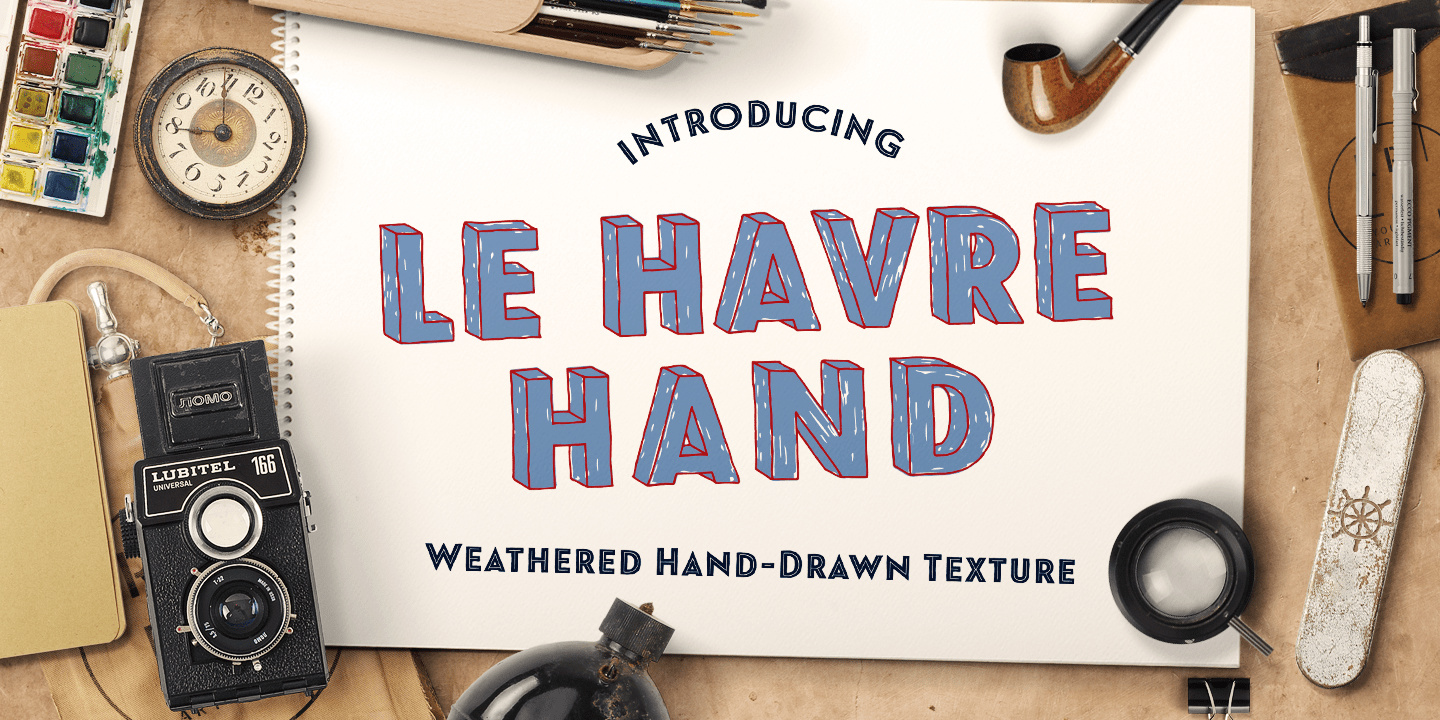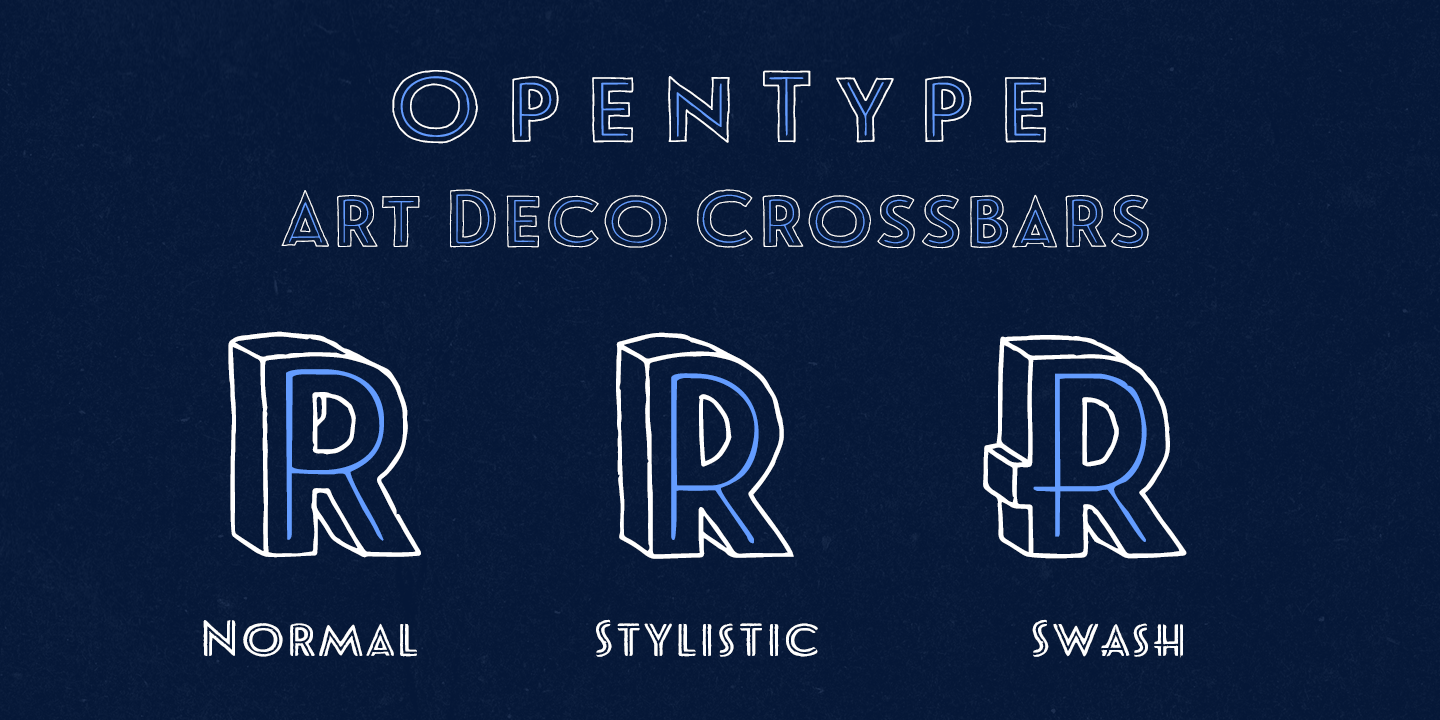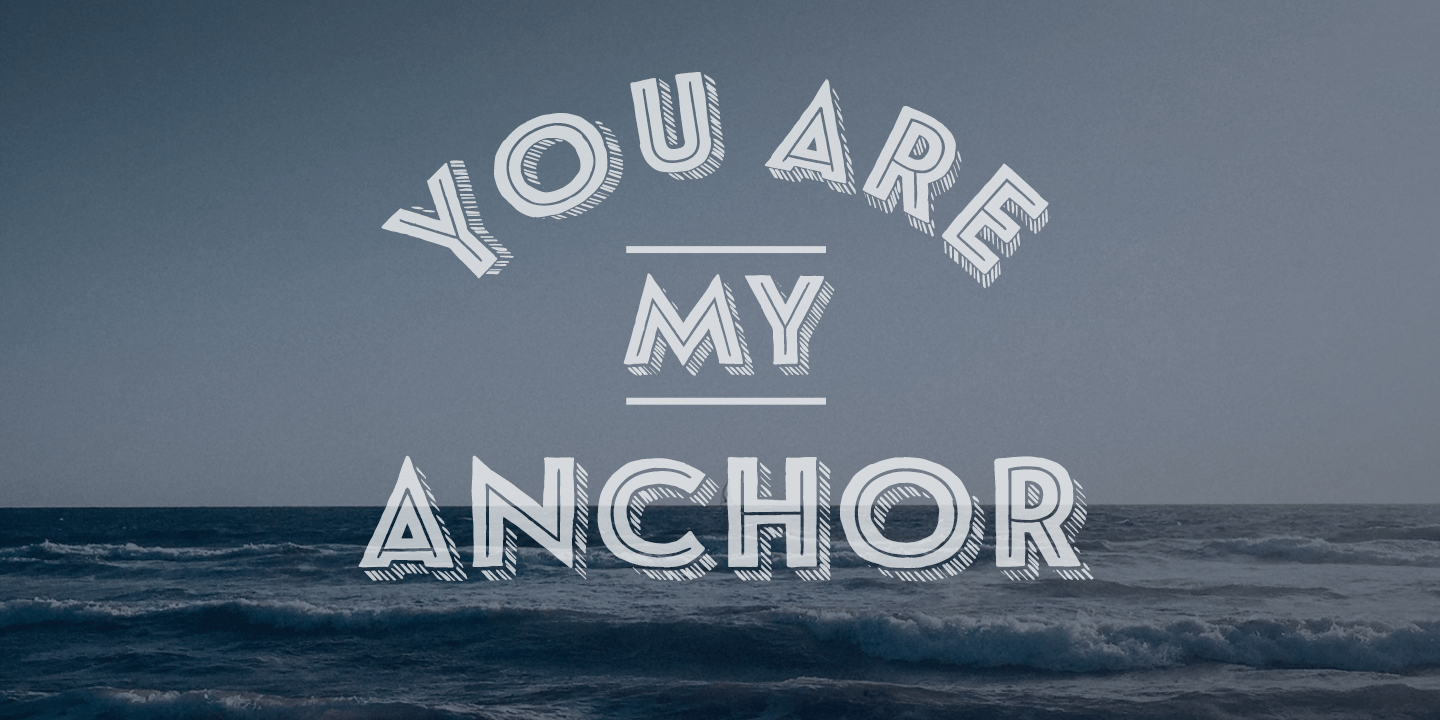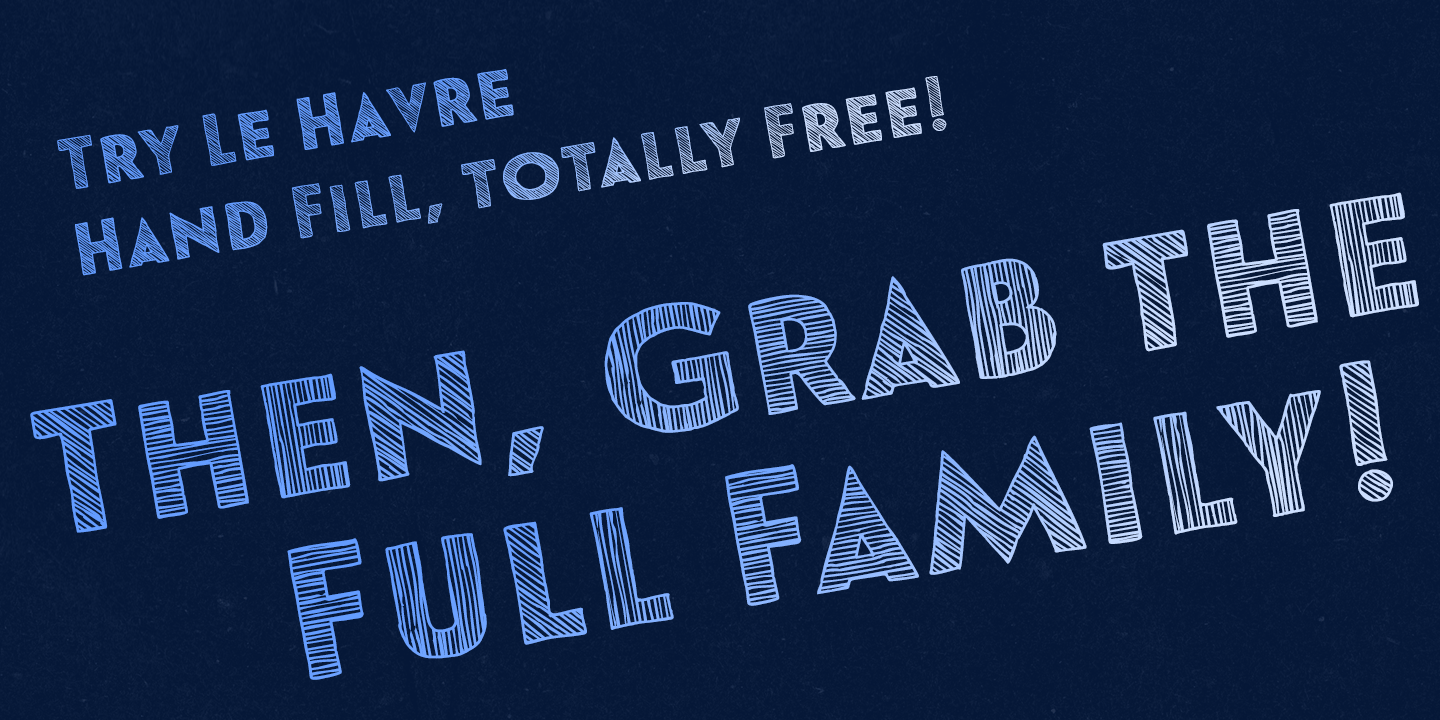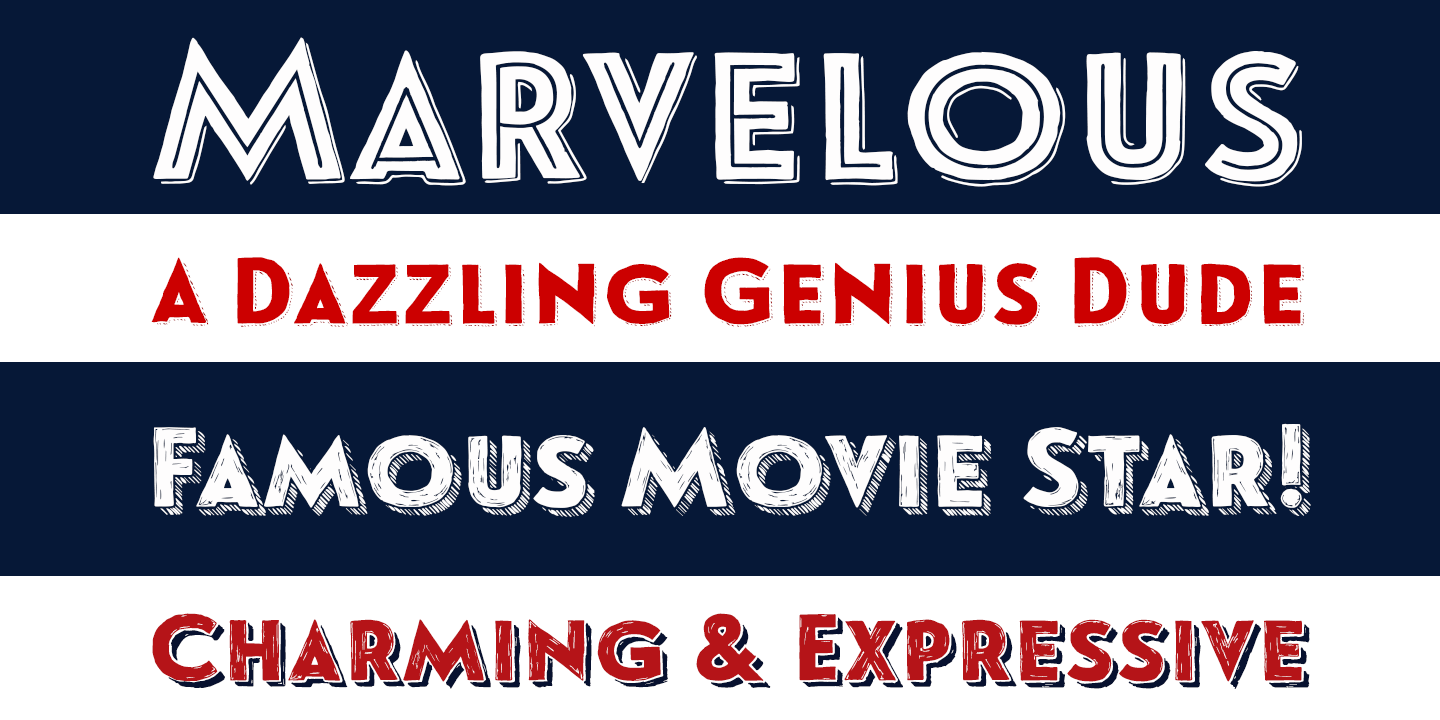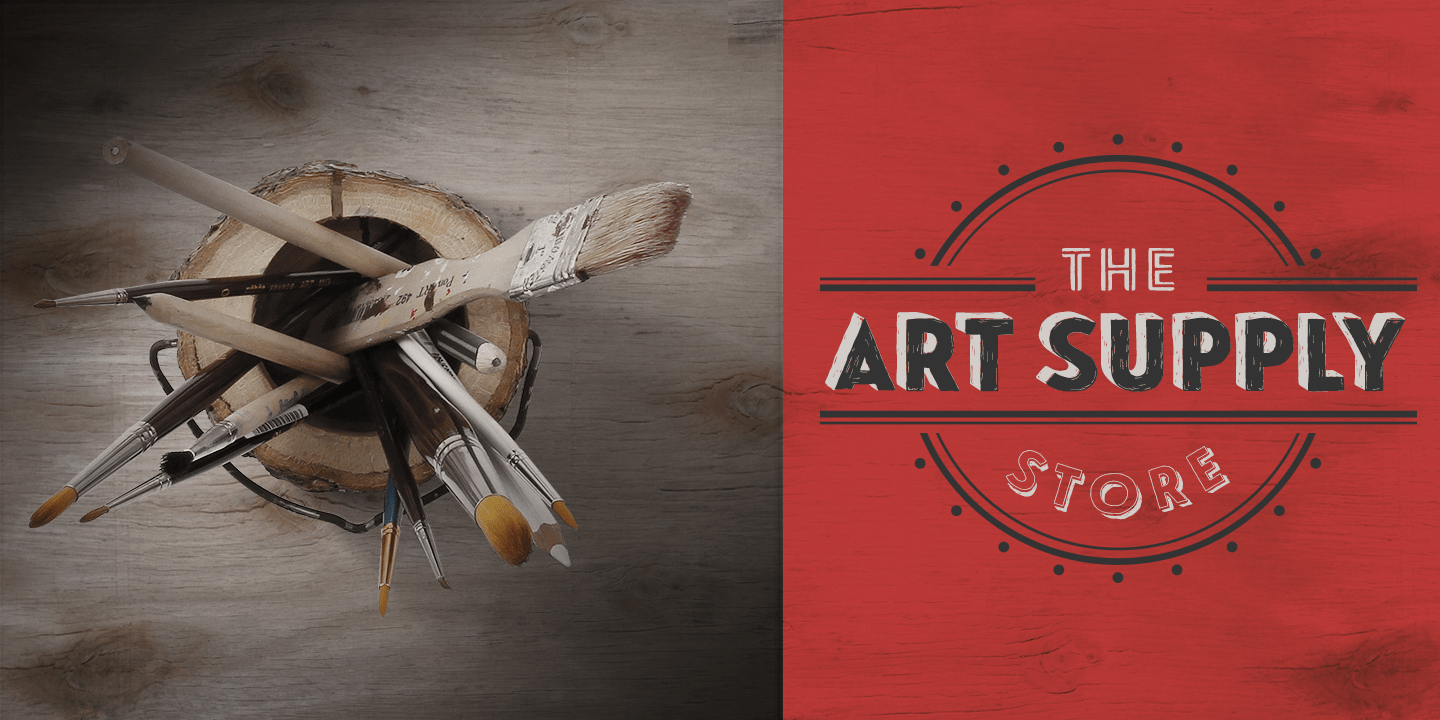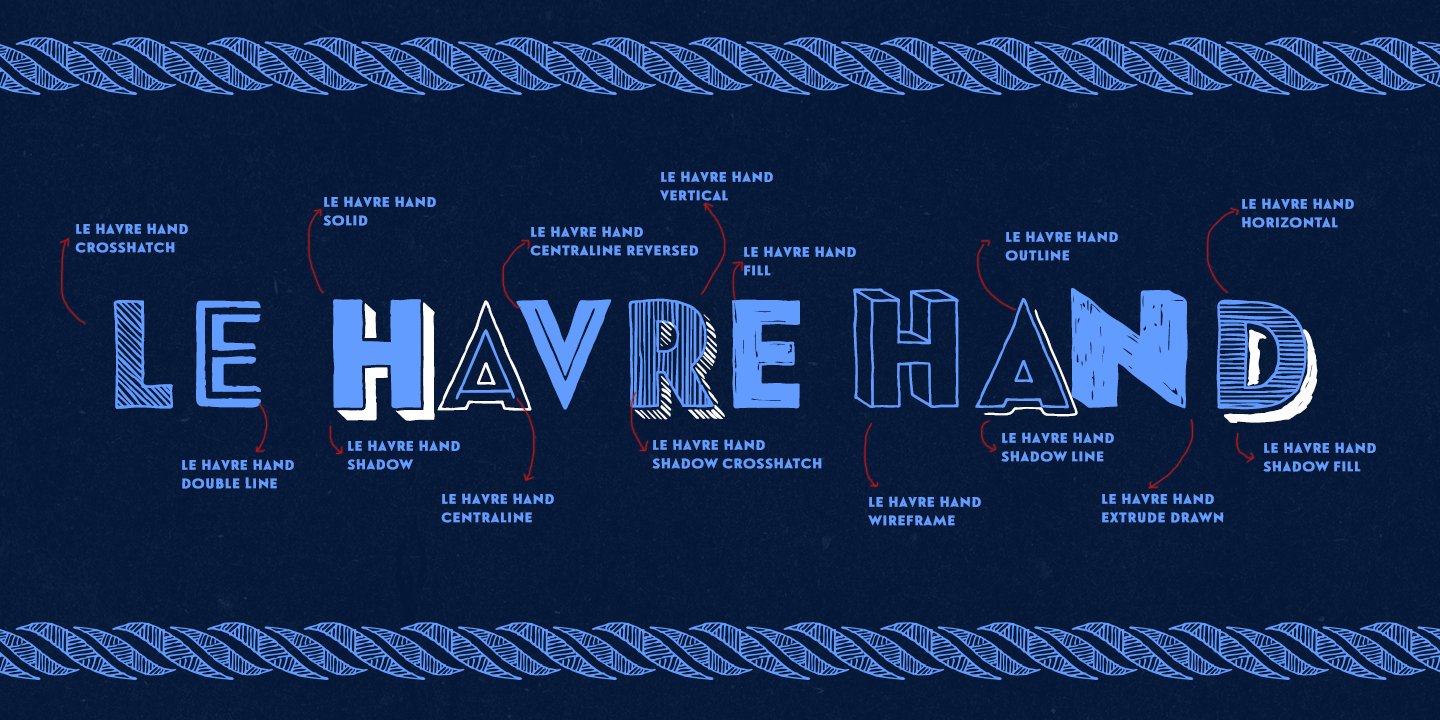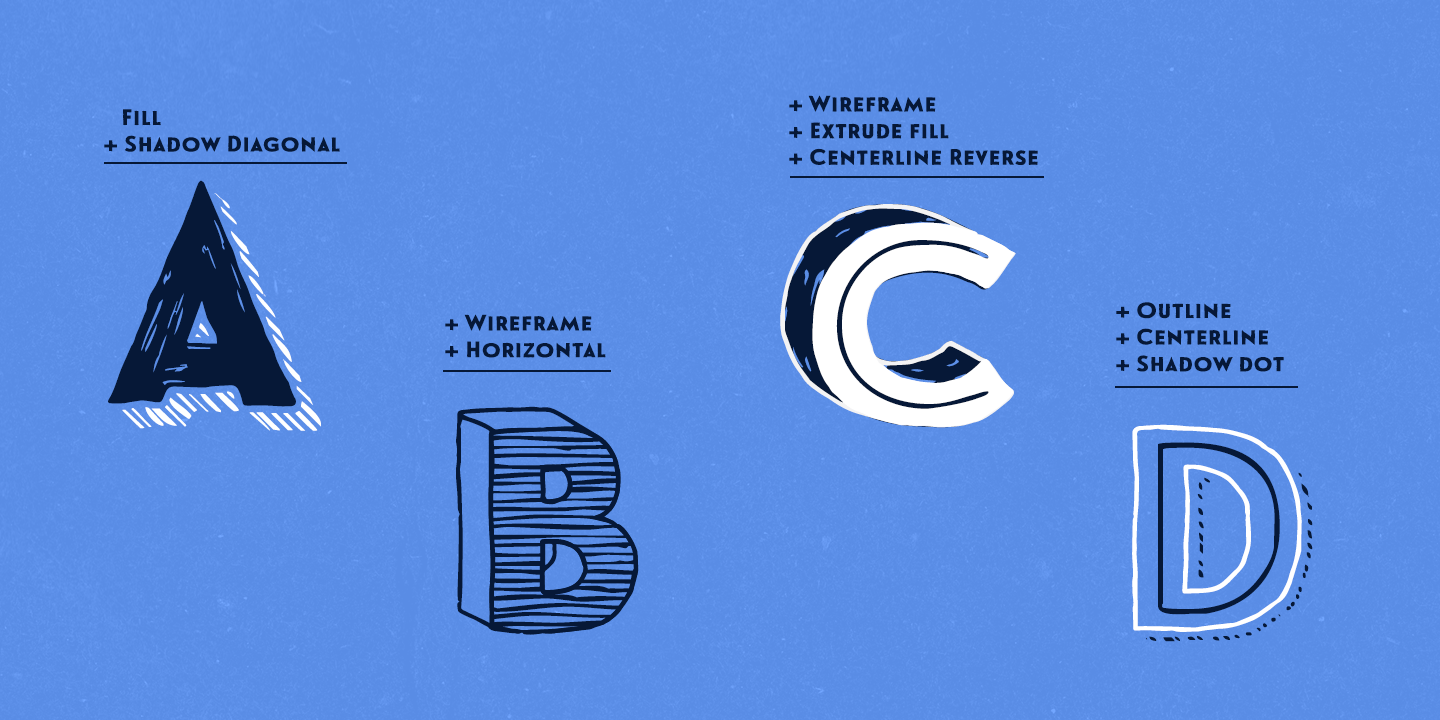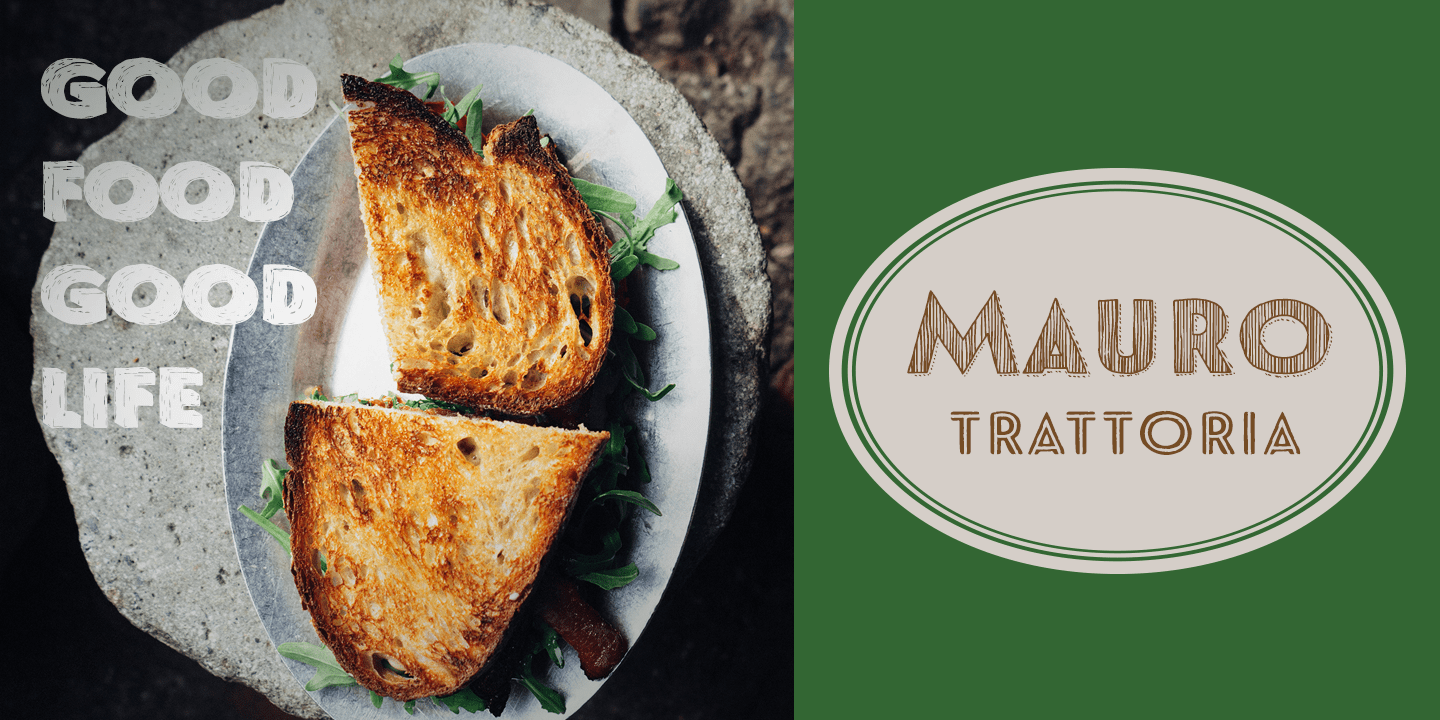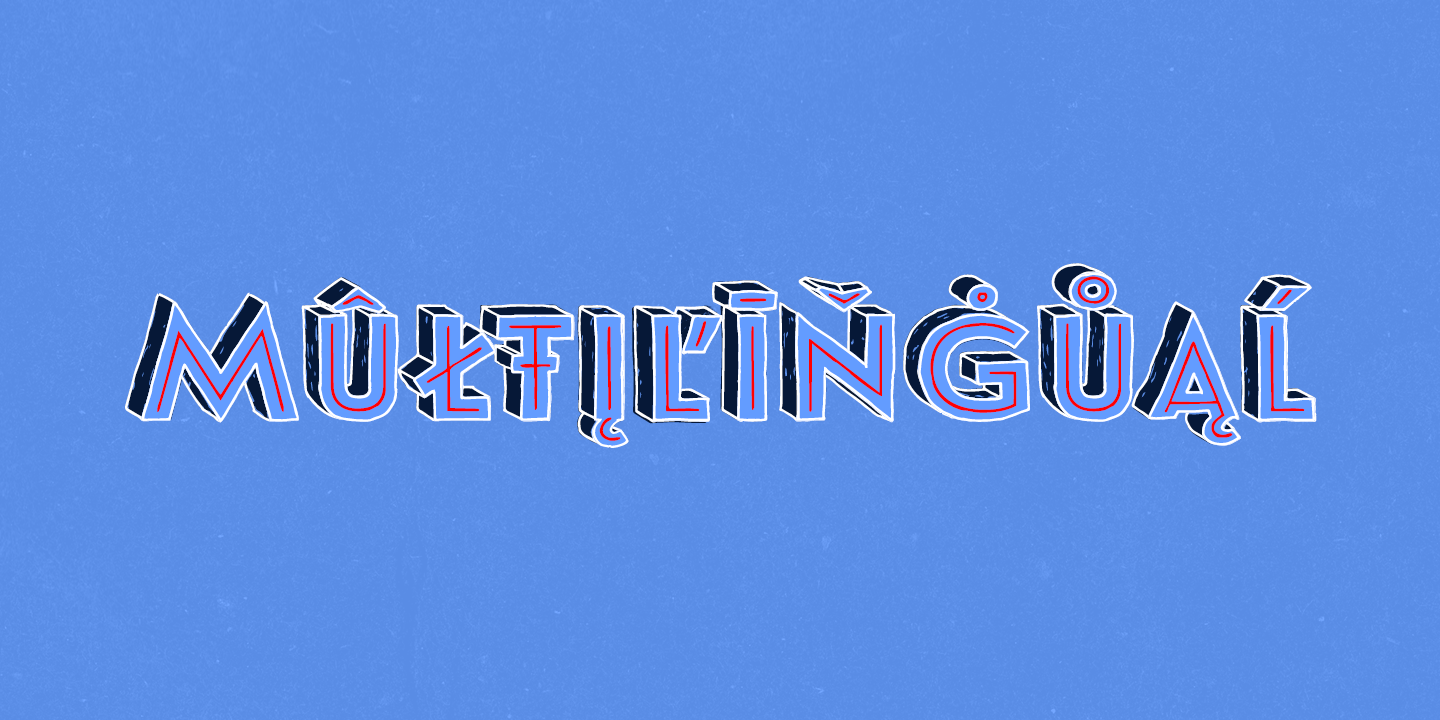
Le Havre Hand
Font Family by Insigne
Le Havre. It's a family with no lack of characters diverse, yet none are as deep or tested in their appearance as the weathered, hand-drawn texture of Le Havre Hand.
Tall and lean, the well-aged face carries with it the stories of a thousand miles. Starting with a sans as its origin, this handwritten font's layered structure has been shaped through time and trial, ultimately capturing the simple beauty of a wise, experienced character.
This layer-based font family includes style variations and new layering solutions. Le Havre Hand includes 21 font files. It also includes an outline, crosshatched versions and five inline variations, several extruded variants including a unique wireframe options. There are two extruded fonts and two drop shadow fonts. For users that have Opentype programs, such as Adobe Illustrator, Photoshop, InDesign, Microsoft Publisher and Quark, each font also comes with an established set of art deco alternatives.
Le Havre Hand's alternate characters come together to exhibit a clear sensitivity to the art deco style. Use them on their own or increase your options by using them with any of the other members of the Le Havre family.
Take time to look deep into the soul of Le Havre Hand. It's often the tested, weathered hand that is most reliable to guide you to success.